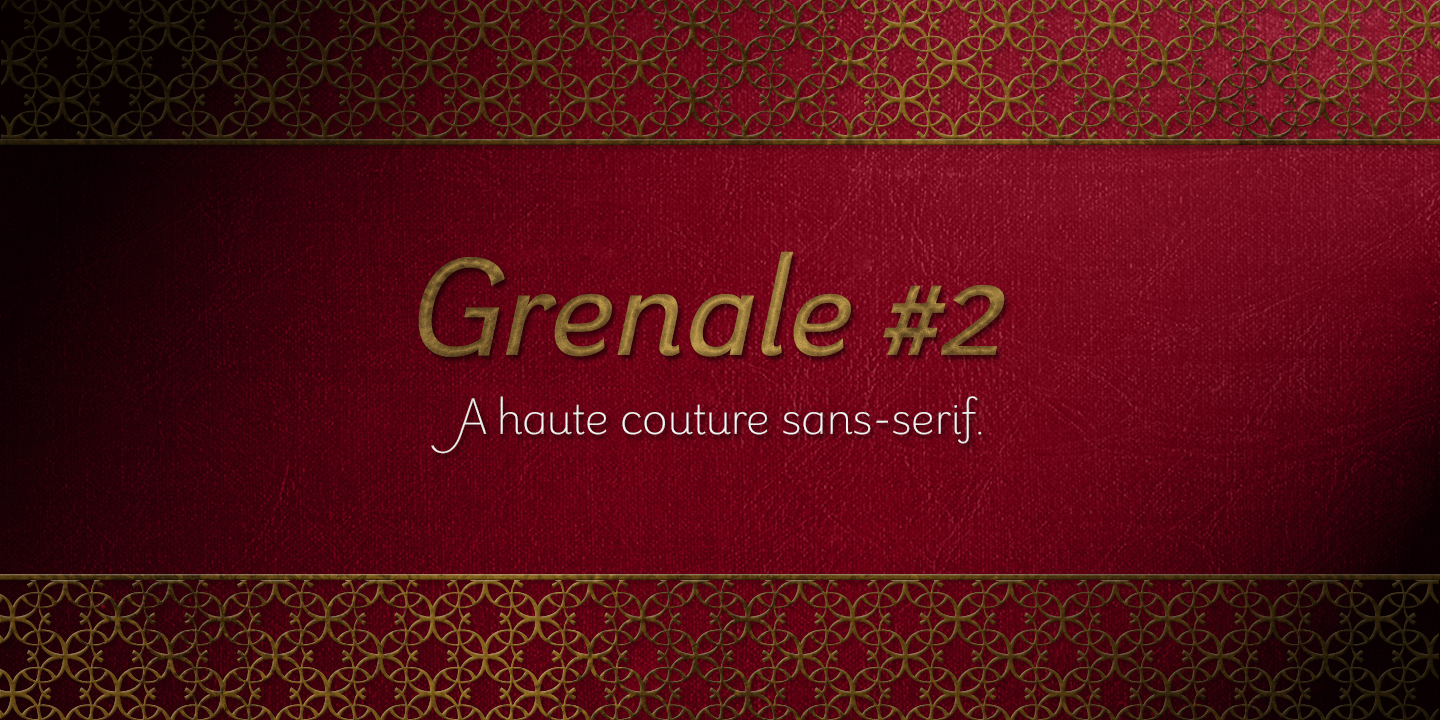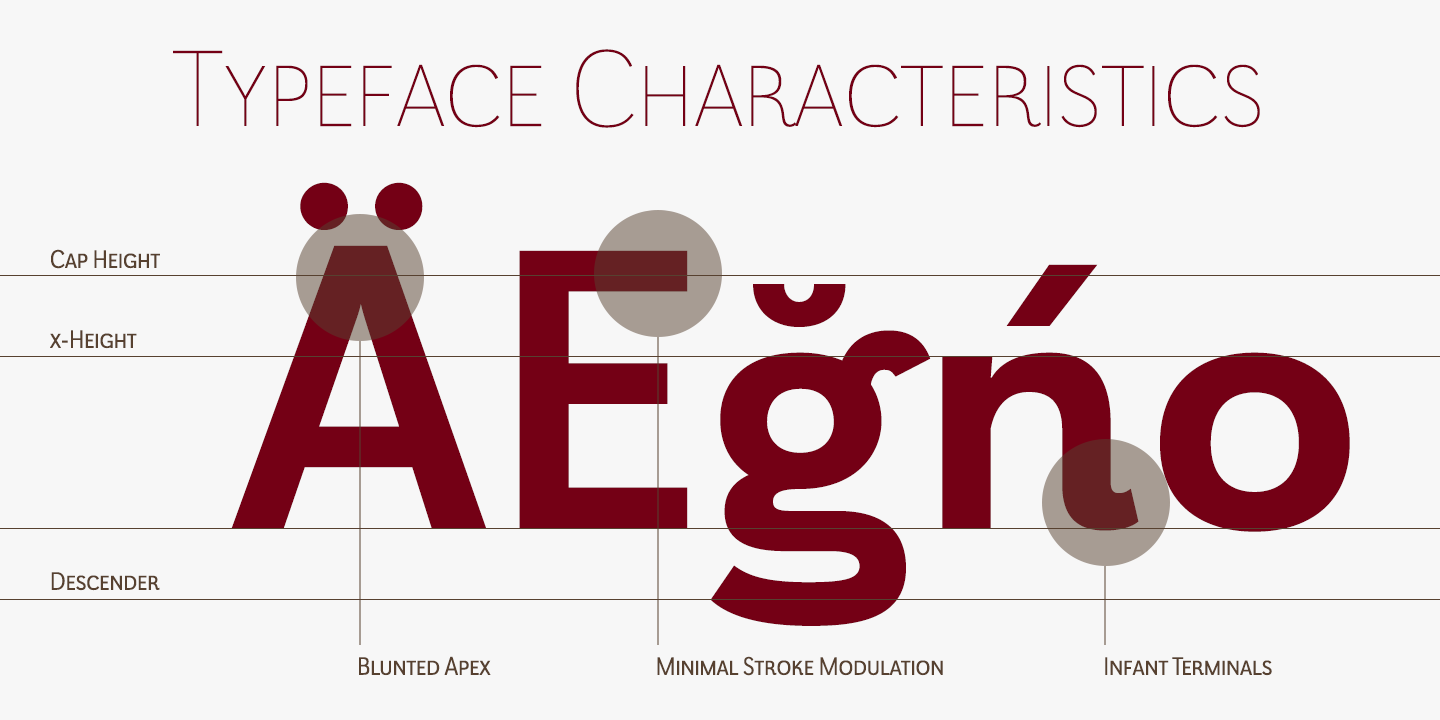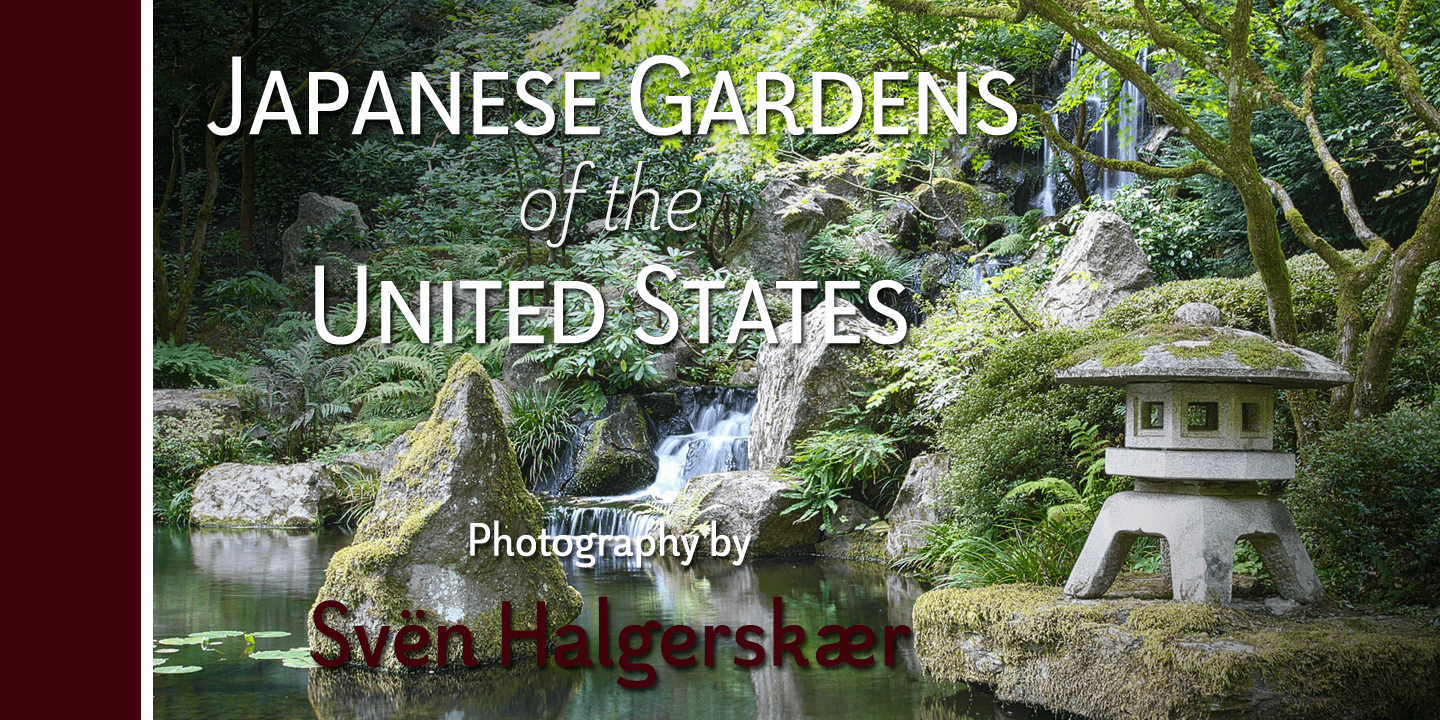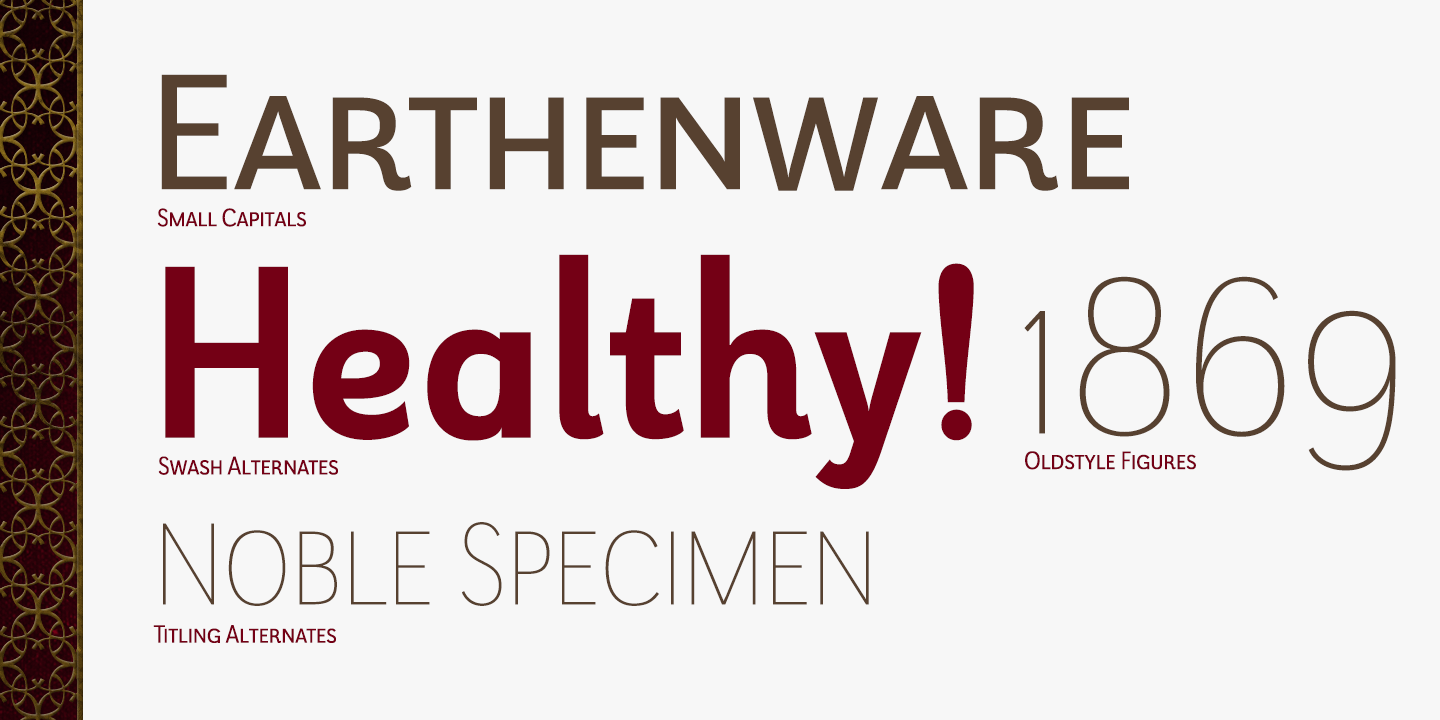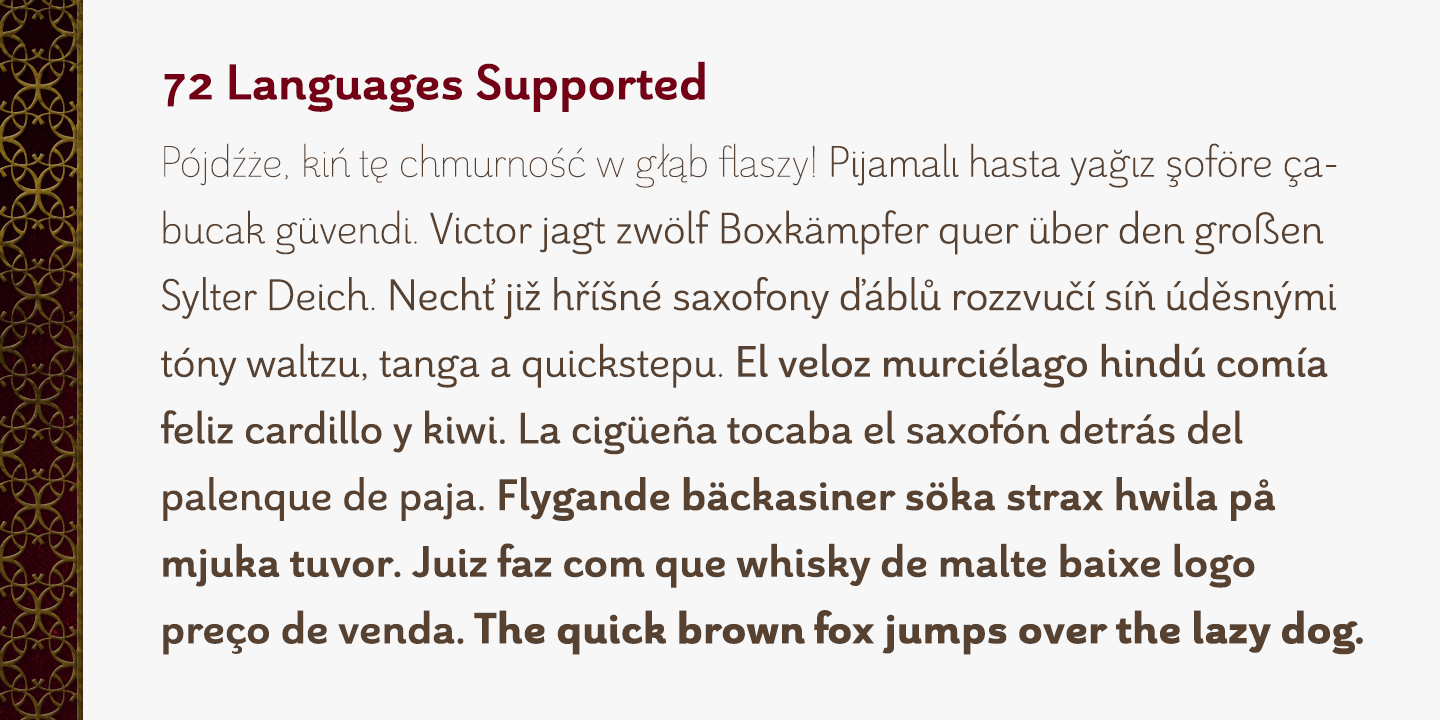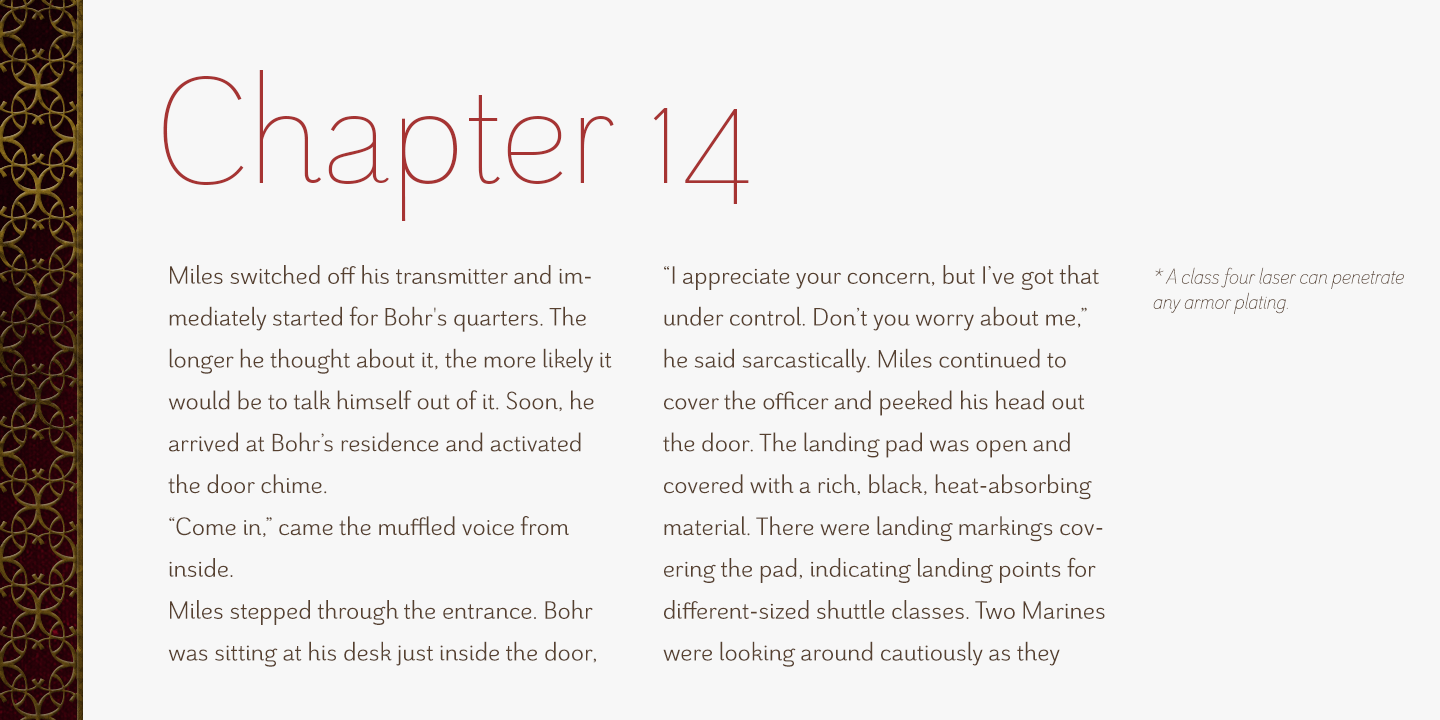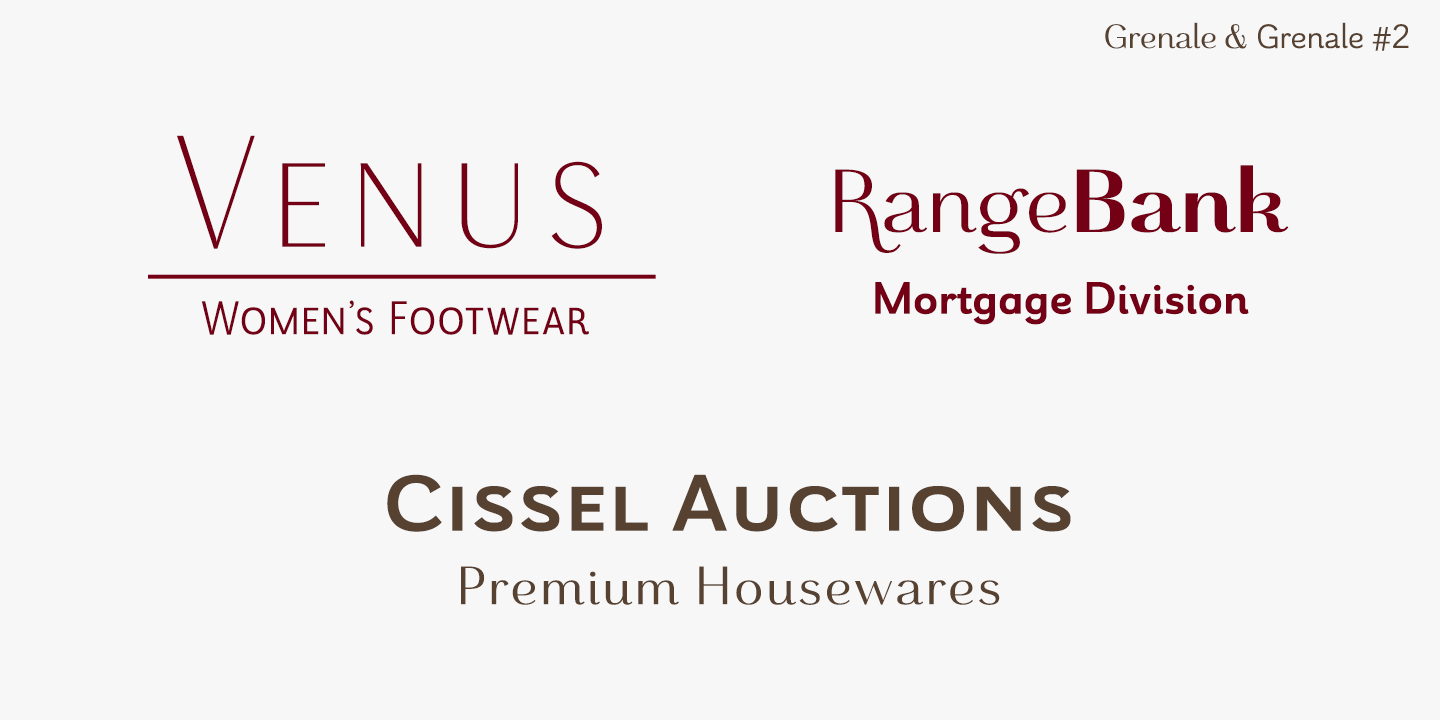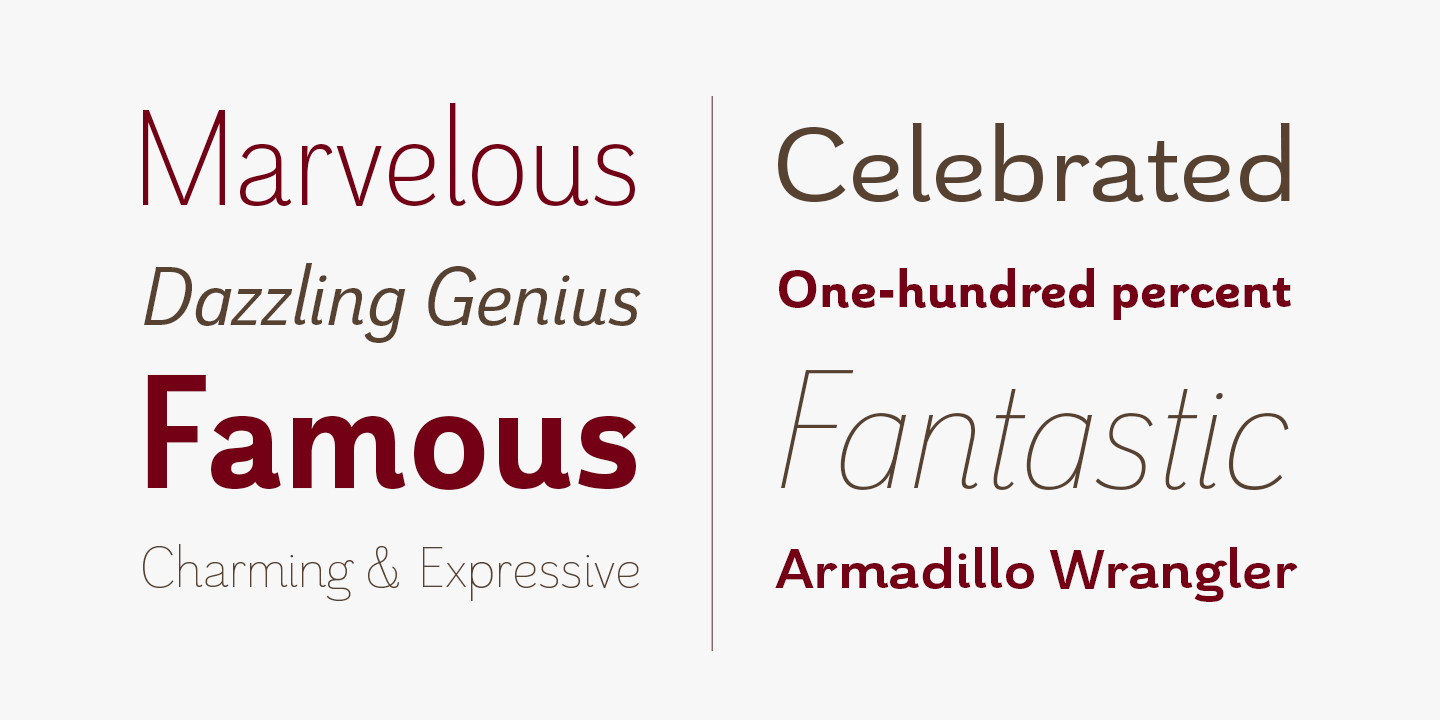
Grenale #2
Buy NowGrenale #2 shapes the new standard of elegance within the Grenale family. Not your typical sans, this pure, geometric structure with its glamorous sensitivity draws much inspiration still from Grenale's didone sans and the haute couture influence. Independently attractive, though, the form abandons the original's high contrast for its own minimal stroke variation, achieving proper balance through its graceful strokes.
Grenale's thin weights are simple but vibrant--elegant forms that naturally lend themselves to designer journals and high-end branding along with upscale applications. With added energy and power, the thicker weights give your work a firmer, statlier look. Grenale #2's upright versions are also matched by optically adjusted italics. While unique in appearance, any of #2's weight also provide a well-matched companion to its original counterpart.
The fashionable typeface includes a multitude of alternates that may be accessed in any OpenType-enabled application. The stylish features include a large group of alternates, swashes, and meticulously refined details with ball terminals and alternate titling caps to accessorize the font. Also included are capital swash alternates, old style figures, and small caps. Peruse the PDF brochure to see these features in action. OpenType enabled applications such as the Adobe suite or Quark can take full advantage of the automatic replacing ligatures and alternates. This family also offers the glyphs to support a wide range of languages.
It's time to think high-class. Graceful and assured, the carefully crafted forms of Grenale #2 step pleasantly onto each page with elegant charm. Include its range of alternate glyphs, and this chic font is a superb choice for bringing a far more refined look to your projects.